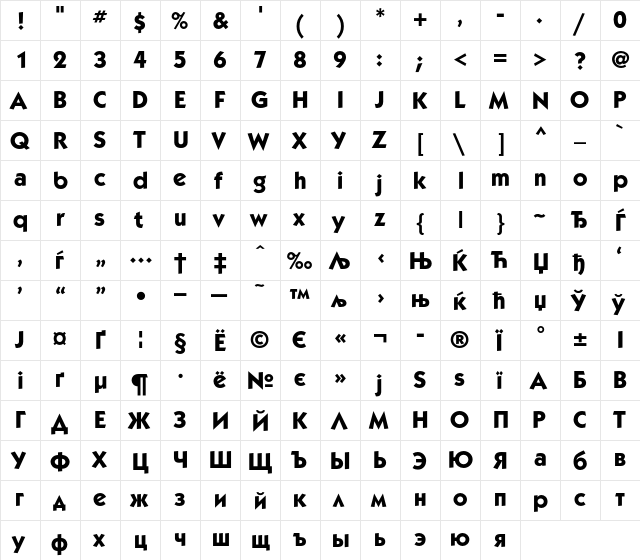
KabelC Regular
Design Context for KabelC Typeface
KabelC takes a measured approach to typography — its balanced proportions and neutral character make it a reliable workhorse for both digital and print work.